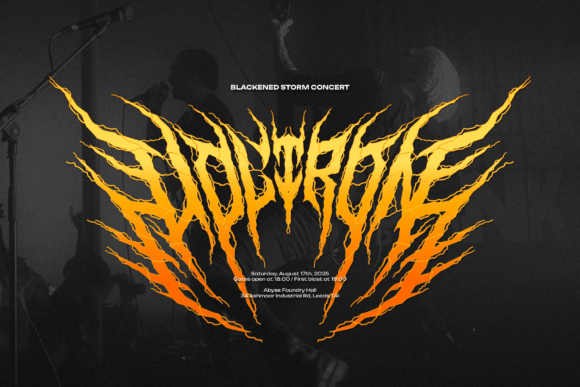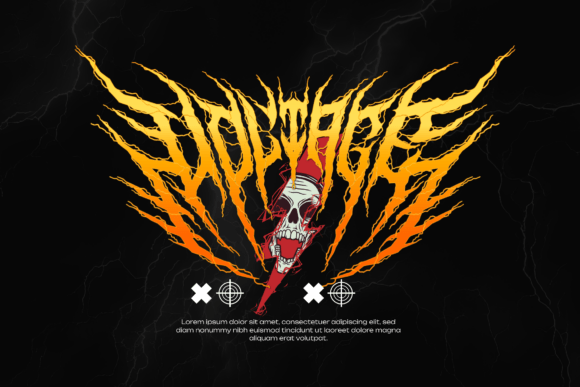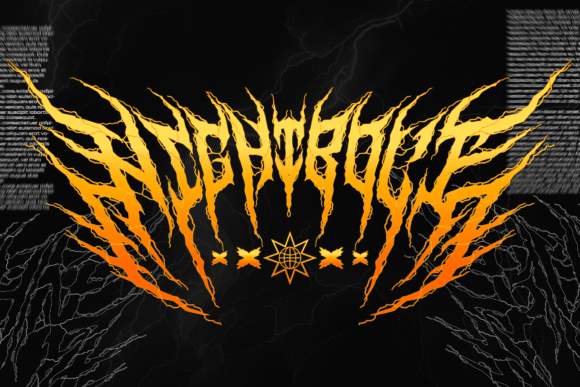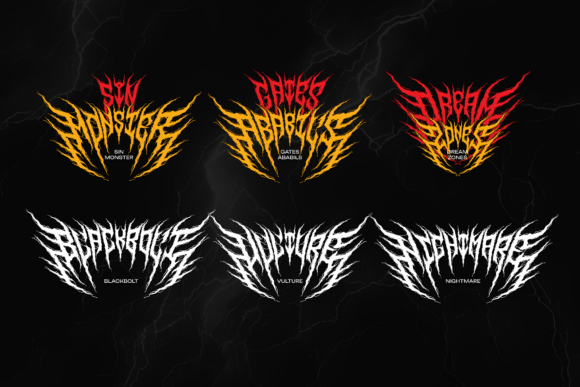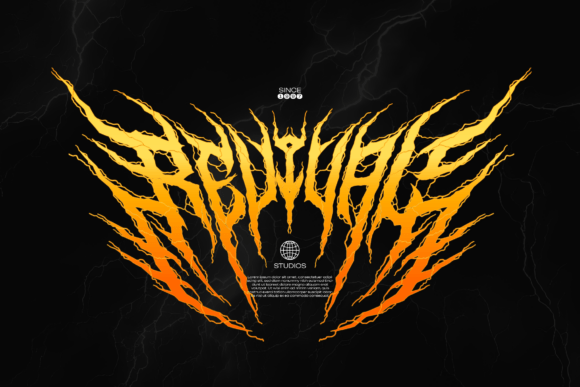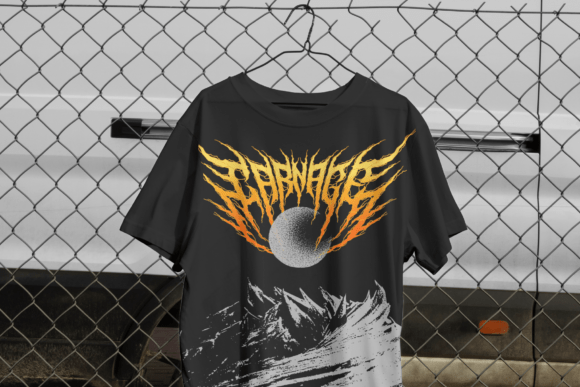
Introduction to Megavolts Font Font
Fonts play a crucial role in design, and the Megavolts Font font is a typeface that brings both character and versatility to any project. Whether you’re working on a branding project, a website, or a print design, the Megavolts Font font offers a unique style that can elevate your work.
Megavolts is a ferociously intense black metal font designed to electrify your designs with raw aggression and chaotic energy.
Featuring over 280 glyphs and 7 distinct alternate styles, this hand-drawn typeface channels the jagged, lightning-inspired shapes of extreme metal logos Perfect for band merch, horror posters, underground zines, and dark branding, Megavolts delivers maximum voltage to any visual composition.
Why Choose Megavolts Font Font?
The Megavolts Font font is more than just a typeface – it’s a design tool that helps you communicate your message with style and clarity. Its unique character set and versatile design make it suitable for a wide range of applications, from elegant invitations to bold headlines.
With its carefully crafted letterforms and balanced proportions, the Megavolts Font font ensures readability and visual appeal across all mediums.
What makes Megavolts Font font special?
The Megavolts Font font stands out with its unique design, exceptional readability, and versatility across various design applications.